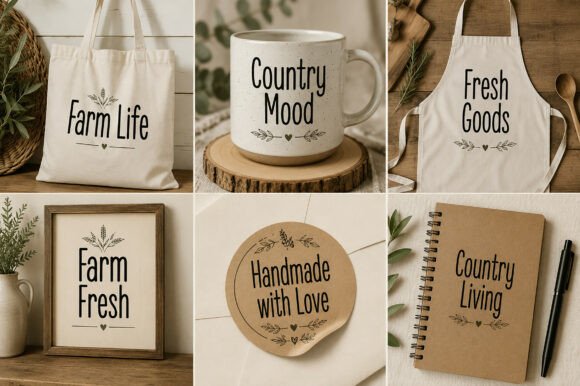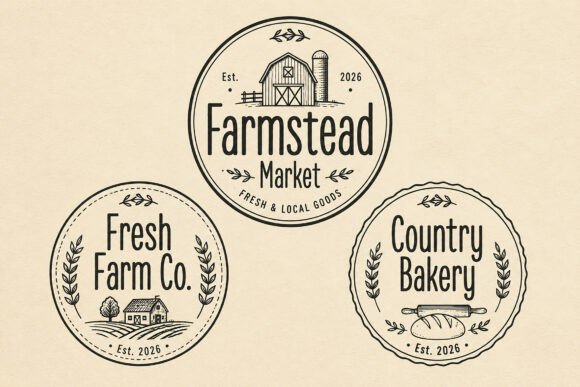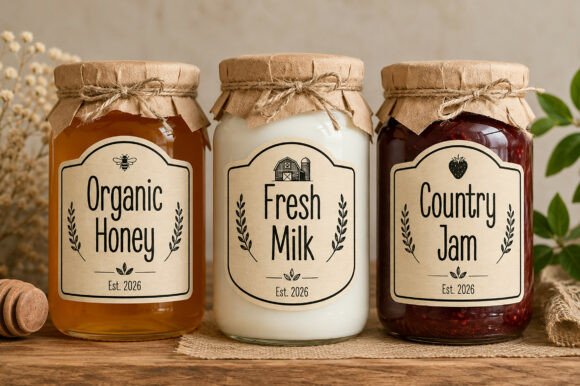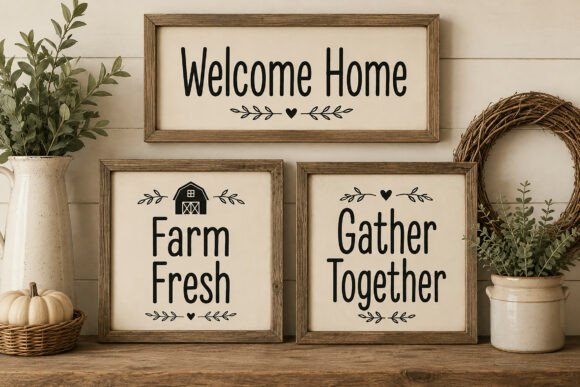
Discover the Charm of Farmstead: A Modern Farmhouse Display Font
As a designer, I’ve had my fair share of font struggles. I recall working on a project for a cozy bakery, determined to find the perfect font that captured their rustic charm. After hours of searching, I stumbled upon Farmstead – a modern farmhouse display font that instantly won my heart. In this article, I’ll share my experience with Farmstead, its features, and how to make the most of this beautiful font in your design projects.
A Personal Review of Farmstead
- ✨ Clean and Easy-to-Read Characters: Farmstead boasts tall, clean letterforms with a friendly, handcrafted feel that adds warmth and authenticity to any design project.
- ✅ Multilingual Support: This font supports multiple languages, making it perfect for global design projects.
- ✅ Uppercase & Lowercase Letters, Numbers, and Punctuation: Farmstead comes with a comprehensive set of characters, ensuring you have everything you need for your designs.
- ✅ Farmhouse & Rustic Style: The font’s rustic charm and modern twist make it ideal for farmhouse signs, organic product packaging, bakery branding, and more.
While Farmstead is an excellent font, it’s not without its quirks. Here are a few things to keep in mind:
- ⚠️ Limited Stylistic Alternates: Farmstead has a limited set of stylistic alternates, which might not offer as much flexibility for certain design projects.
- 🤔 Glyphs and OpenType Features: While Farmstead supports OpenType features, some users might find the glyphs and character set a bit limited compared to other fonts.
The Story Behind Farmstead
Farmstead was designed with the rustic charm of the countryside in mind. Inspired by the rolling hills, cozy farmhouses, and handmade goods of rural living, this font brings a touch of warmth and authenticity to any design project. The designer aimed to create a font that would evoke feelings of comfort, simplicity, and elegance – perfect for farmhouse signs, organic product packaging, and more.
| What is Farmstead best used for? | Farmstead is perfect for farmhouse signs, organic product packaging, bakery branding, café logos, Cricut crafts, SVG projects, wedding décor, labels, invitations, social media graphics, and rustic merchandise. |
| Is Farmstead suitable for digital designs? | Yes, Farmstead is designed to be versatile and works well for both print and digital designs. |
| Does Farmstead support OpenType features? | Yes, Farmstead supports OpenType features, including glyphs and stylistic alternates. |